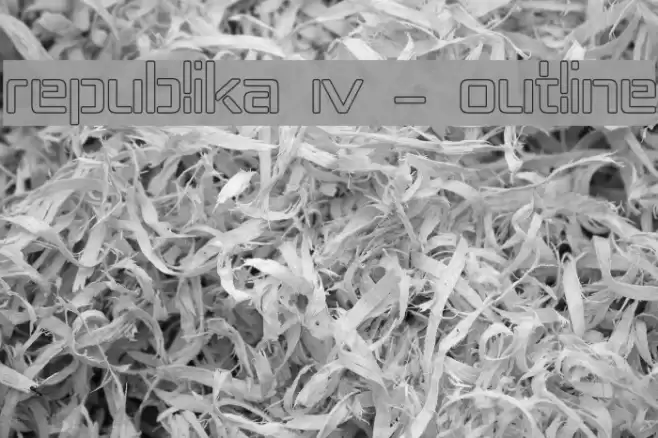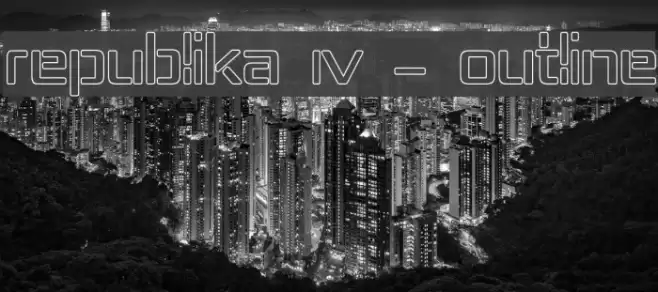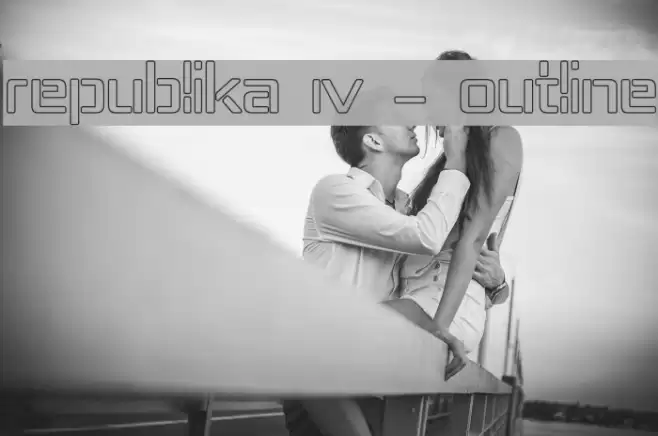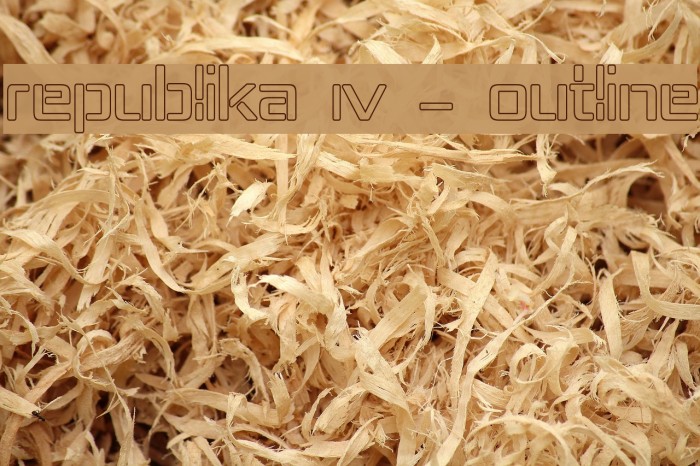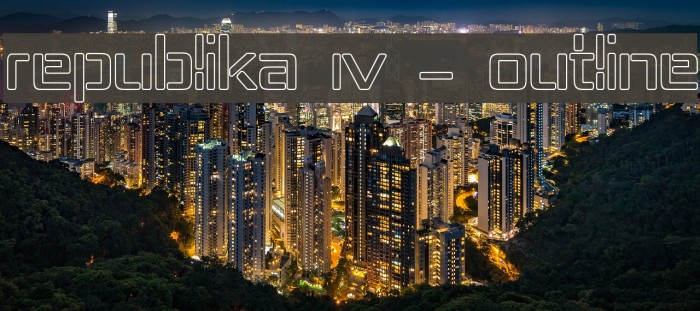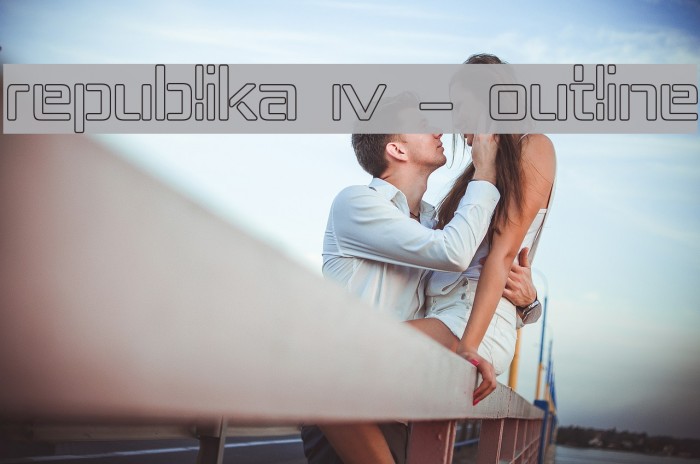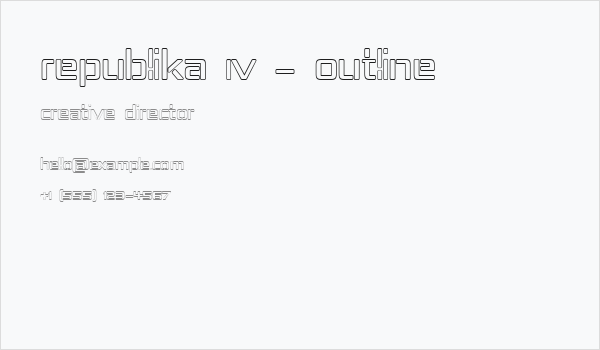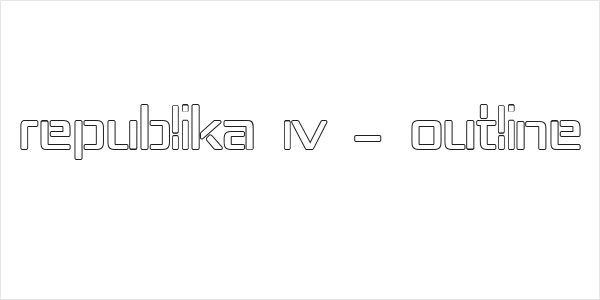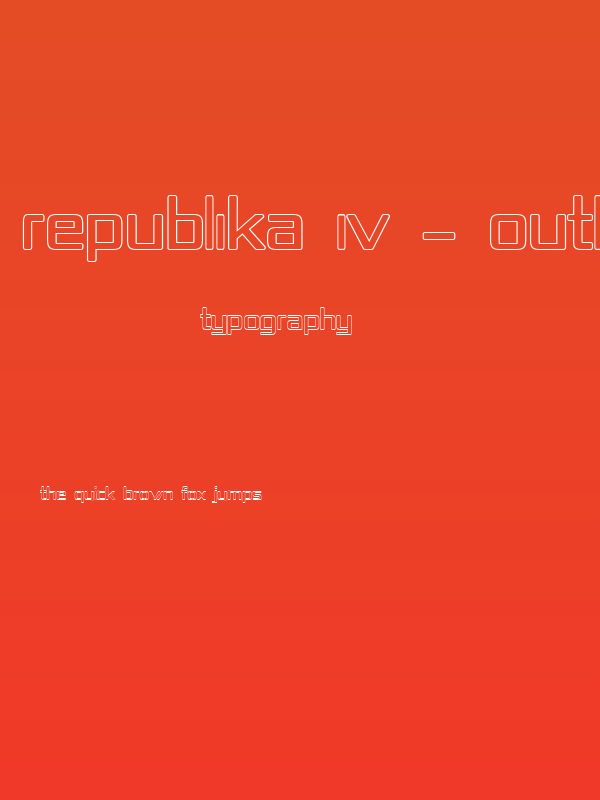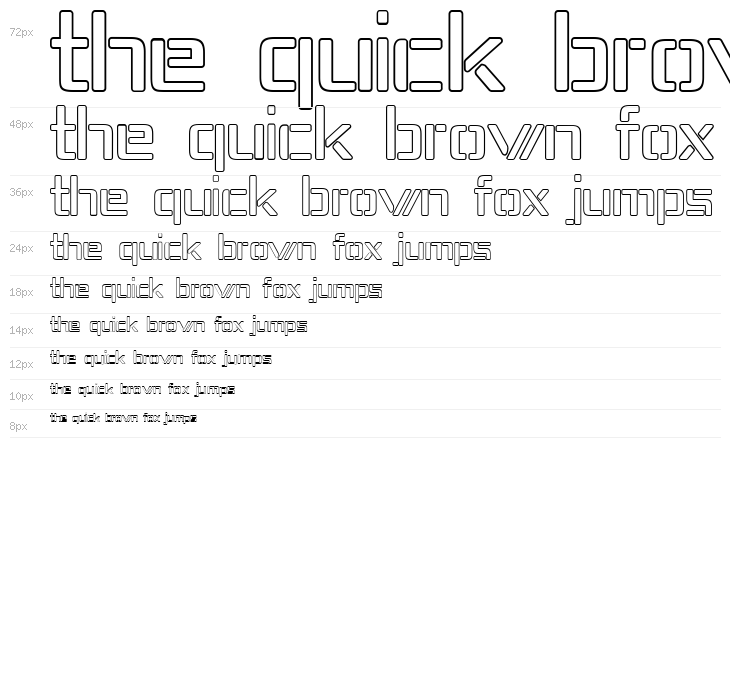
Republika IV - Outline Font
Republika IV - Outline Description
This font features a geometric, outline style with clean, straight lines and rounded corners, creating a modern and futuristic appearance. The characters are uniform in height and width, giving a balanced and structured look. The outline design adds a unique dimension, making it stand out in digital and print media. The font maintains a consistent stroke width throughout, enhancing its readability while retaining a distinctive aesthetic. Its minimalistic and sleek design is suitable for contemporary projects that require a touch of sophistication and innovation.
A geometric, outline font with a modern and futuristic style from Uncategorized fonts.
- Proposed Projects: Ideal for digital interfaces, tech branding, modern posters, and innovative product packaging.